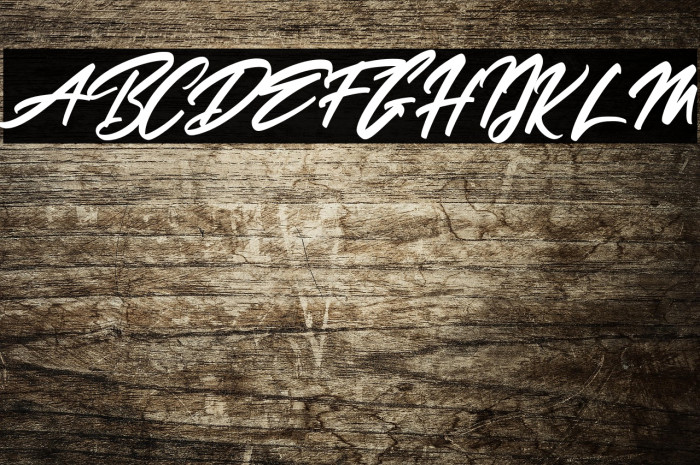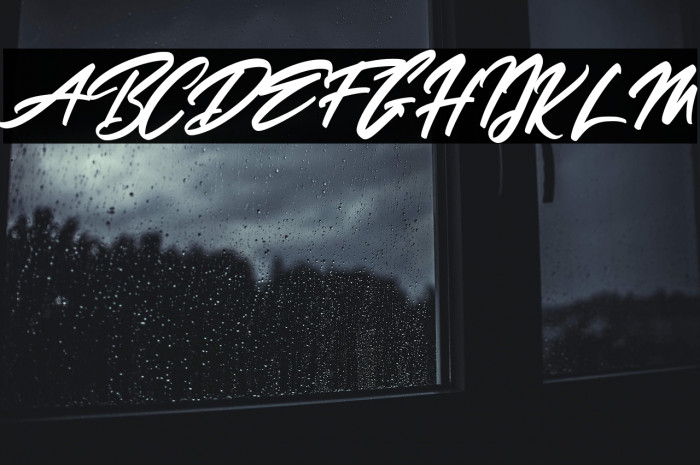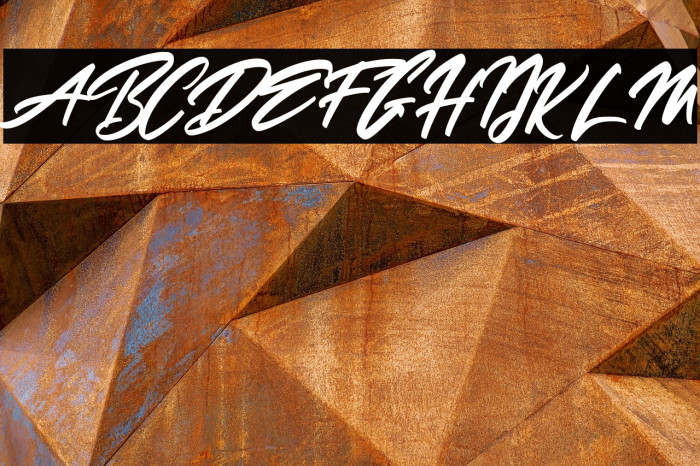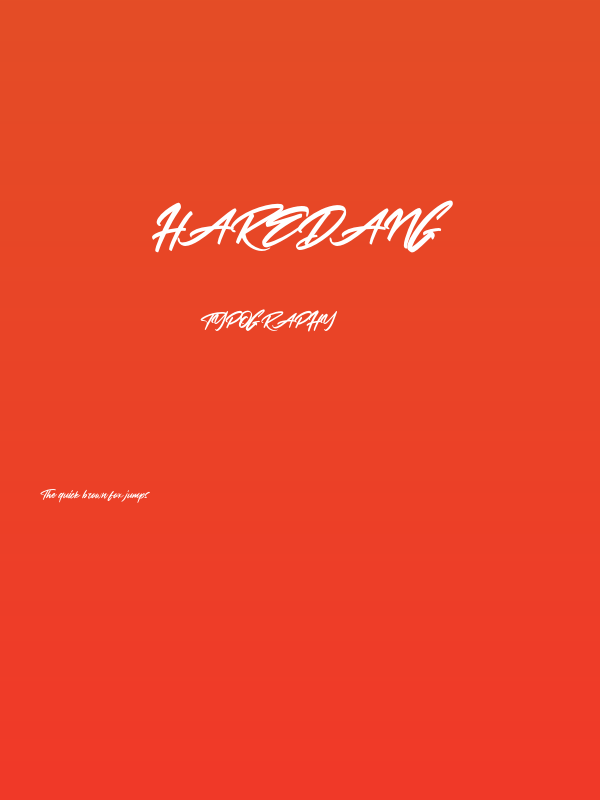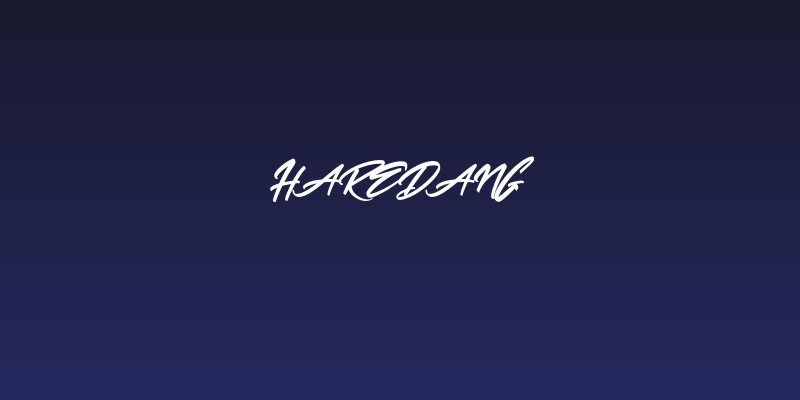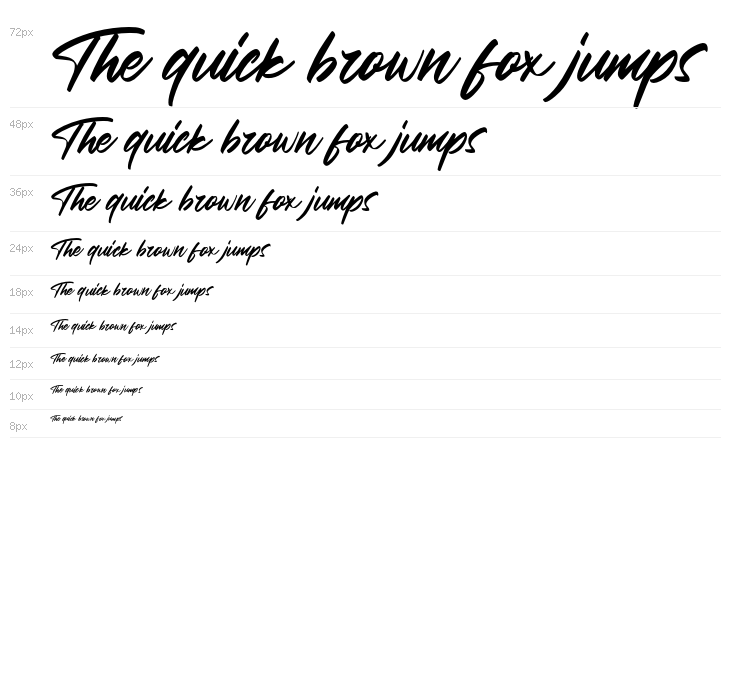
Haredang Font
Haredang Description
This font exudes a dynamic and energetic vibe with its bold, cursive style. The letters are fluid and connected, giving it a handwritten appearance that is both stylish and expressive. The uppercase characters are slightly more angular, adding a touch of modern flair, while the lowercase letters maintain a smooth, flowing form. The numbers are consistent with the overall style, featuring the same bold strokes and cursive design. Special characters are well-integrated, maintaining the font's cohesive look. This font is perfect for projects that require a personal touch or a sense of movement and creativity.
| Use Case | Logos, Headlines, Invitations |
| Proposed Projects | Ideal for branding, invitations, greeting cards, and creative posters. |